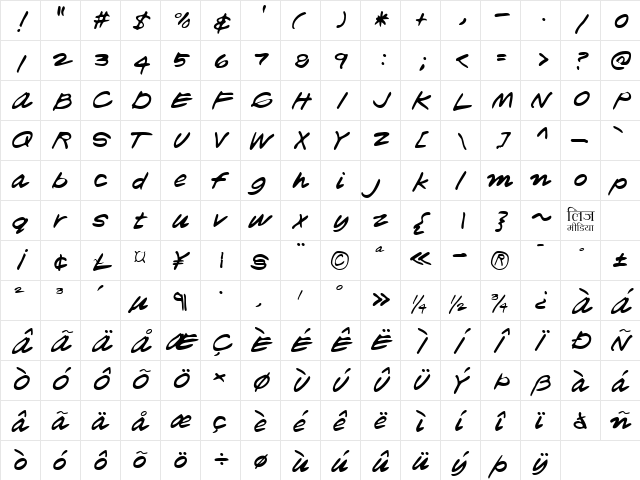
LEHN181 Regular
Design Context for LEHN181 Typeface
LEHN181 is a composed and adaptable typeface that performs quietly and consistently across a wide range of design contexts.